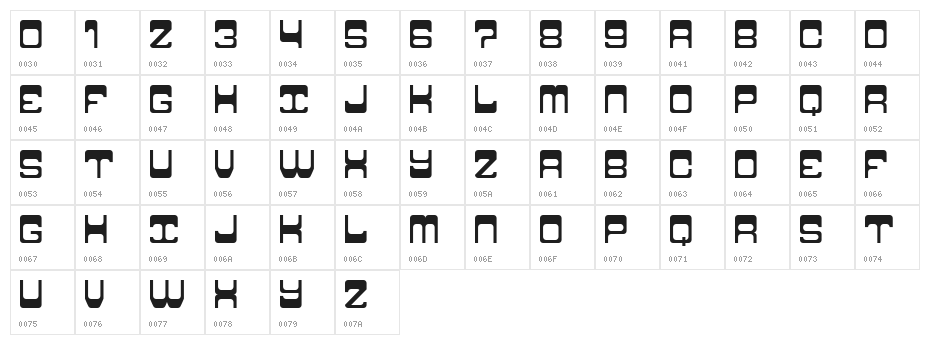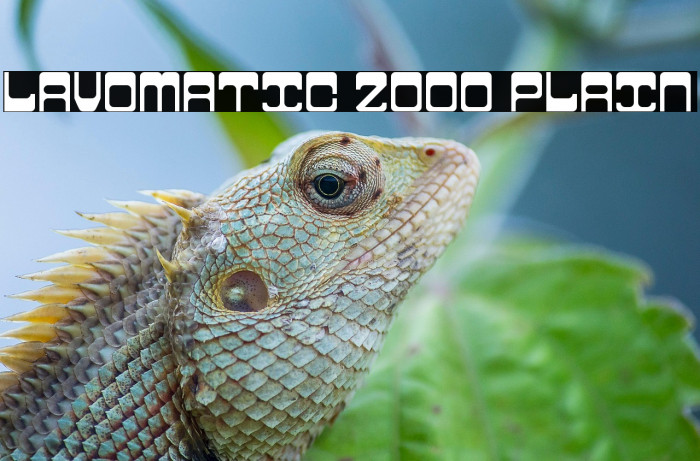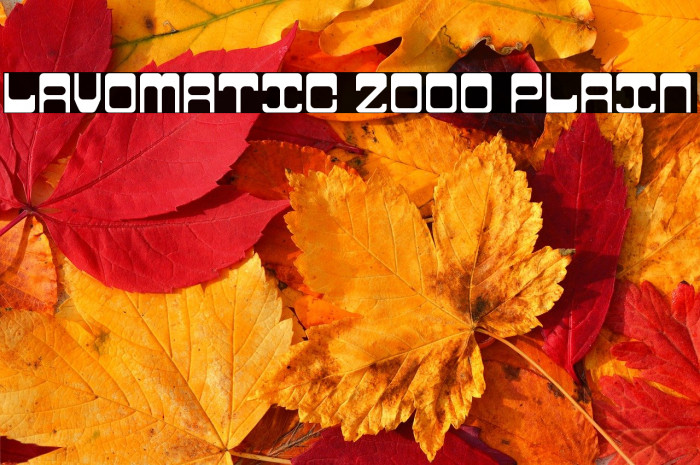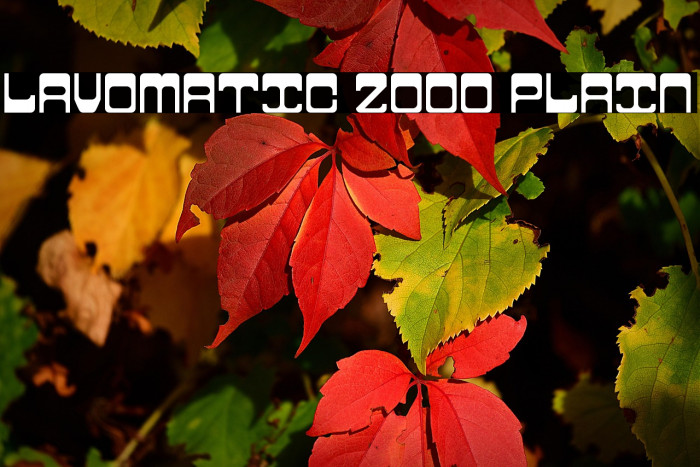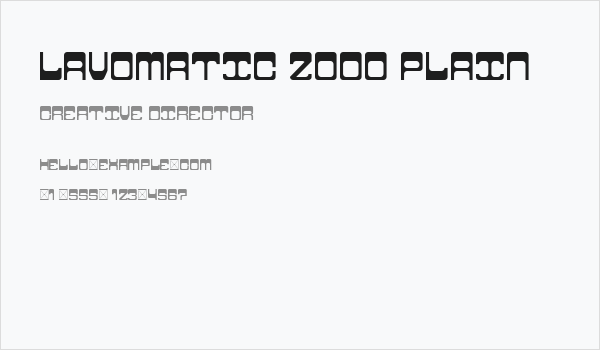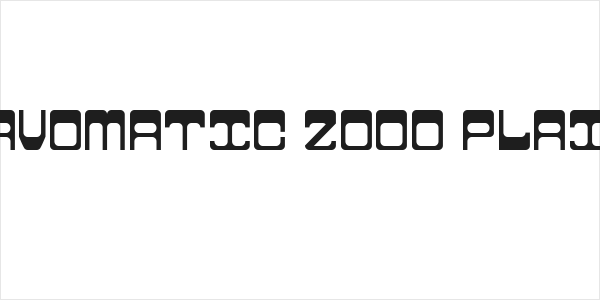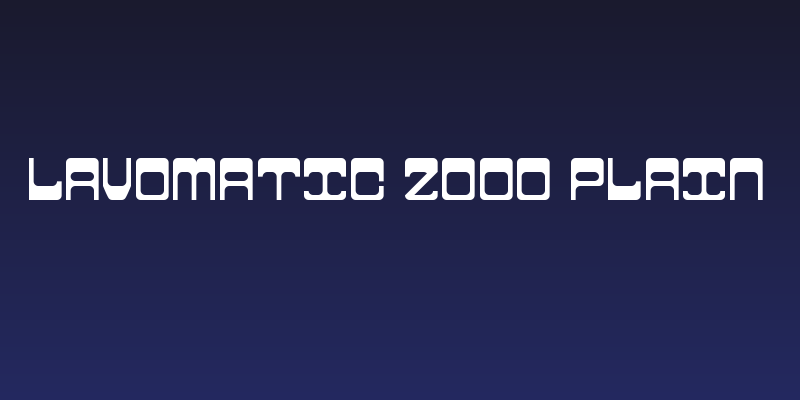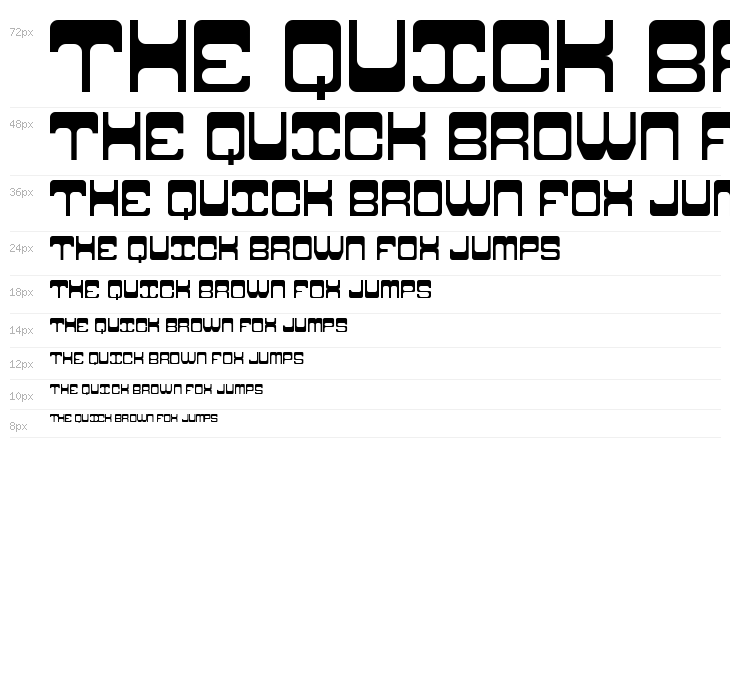
Lavomatic 2000 Plain Font
Lavomatic 2000 Plain Description
This font features a bold, futuristic design with a geometric structure. The characters are constructed with a combination of straight lines and rounded corners, giving it a unique and modern appearance. The uppercase letters are uniform in height, while the lowercase letters maintain a consistent style, enhancing readability. The numbers are distinct and align well with the overall aesthetic. Special characters are designed to match the bold and structured look of the alphabet. The font's design is ideal for projects that require a strong visual impact.
| Proposed Projects | Ideal for technology branding, sci-fi posters, video game titles, and modern advertising. |